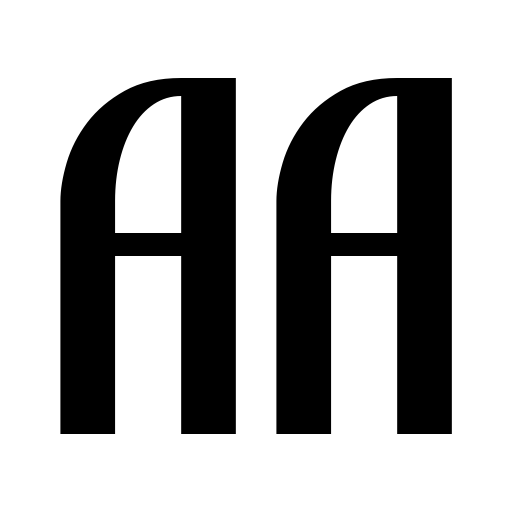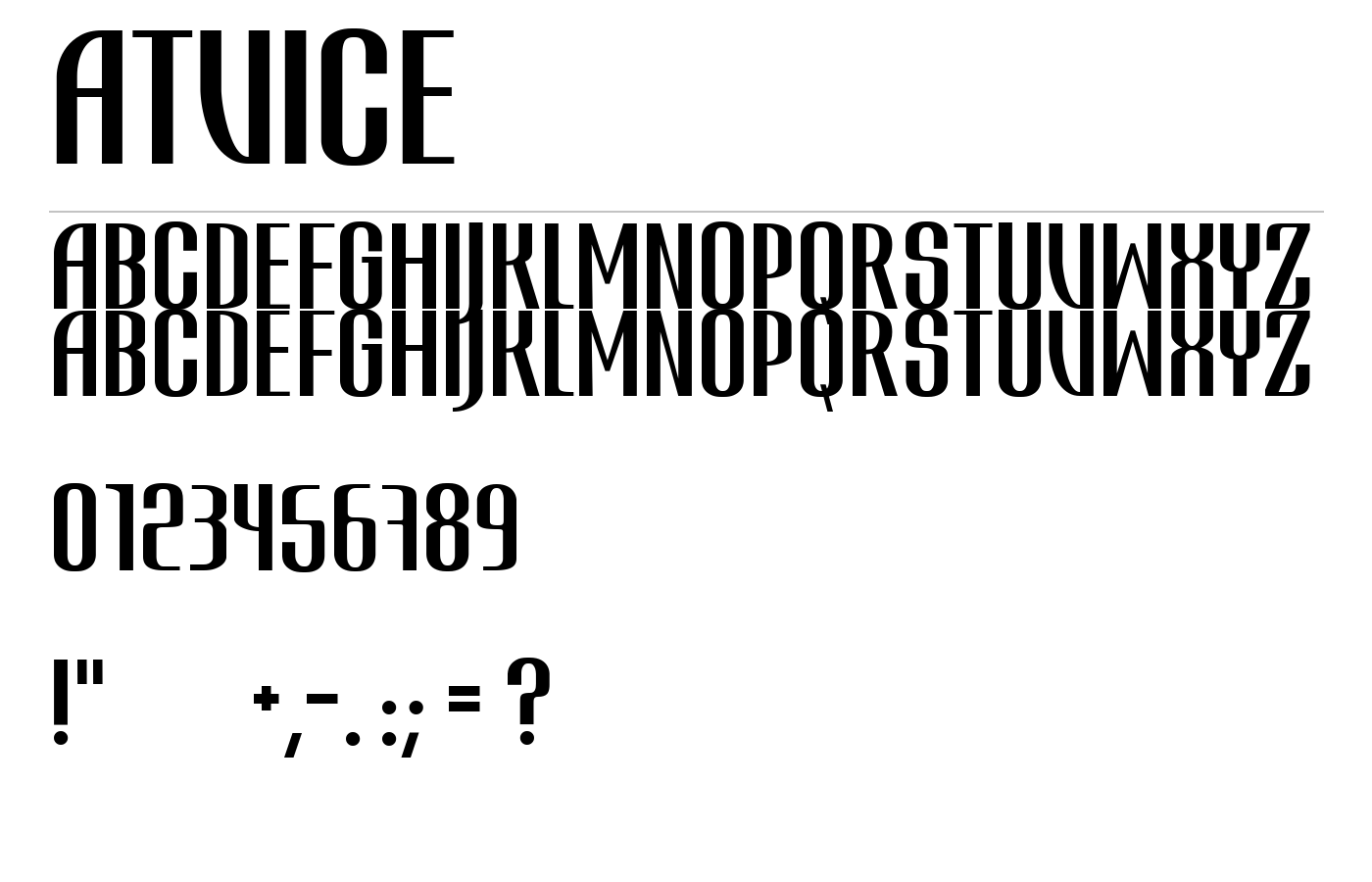
Atvice is a modern, condensed sans serif font with a tall, narrow structure and high contrast between thick and thin strokes, giving it a sleek and stylish appearance. Its clean, geometric letterforms combined with unique details, such as the sharp terminals and distinctive curves, make it ideal for eye-catching headlines, logos, and branding where a contemporary and elegant feel is desired. This font works well for fashion, editorial, and luxury projects seeking a sophisticated yet bold statement.
Atvice Font